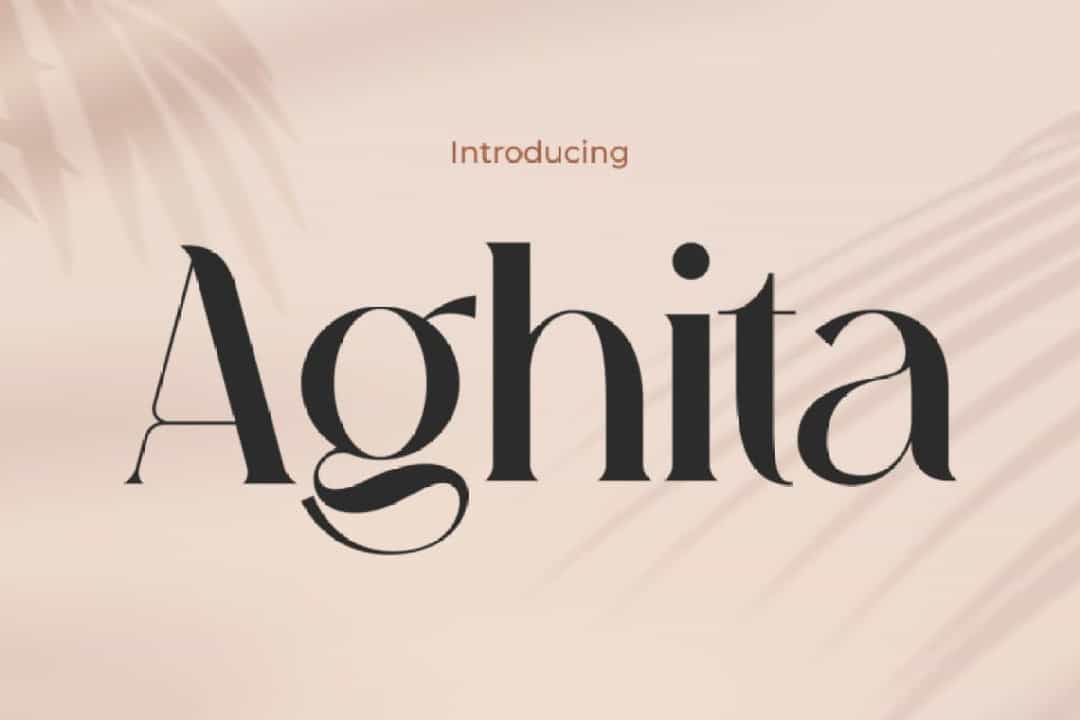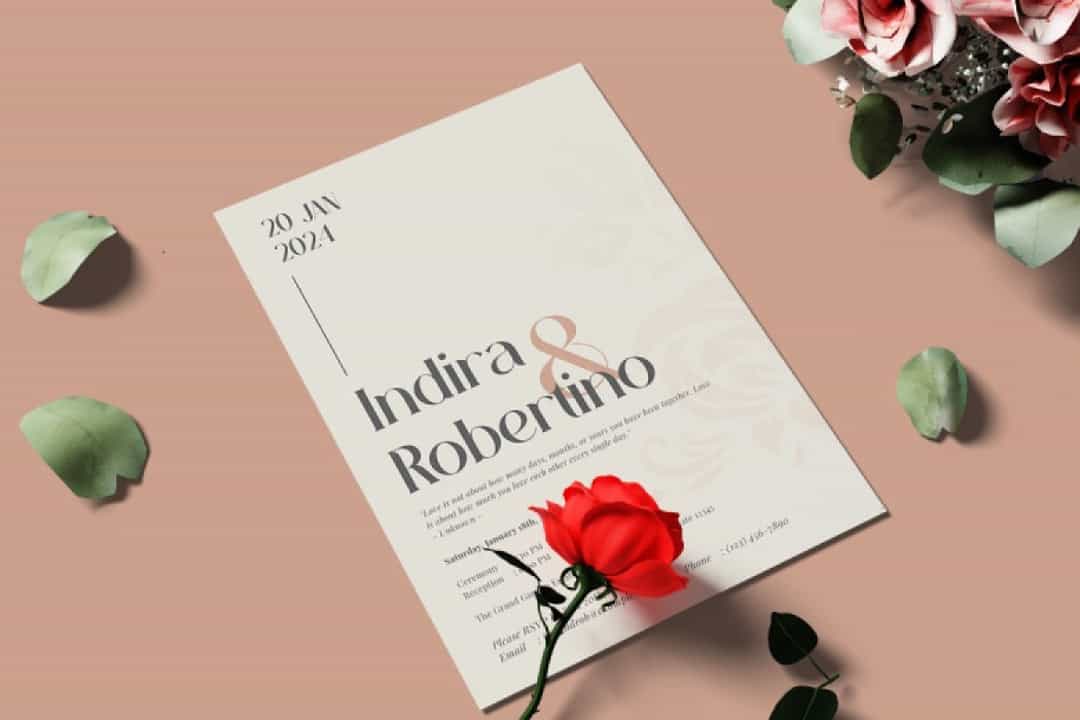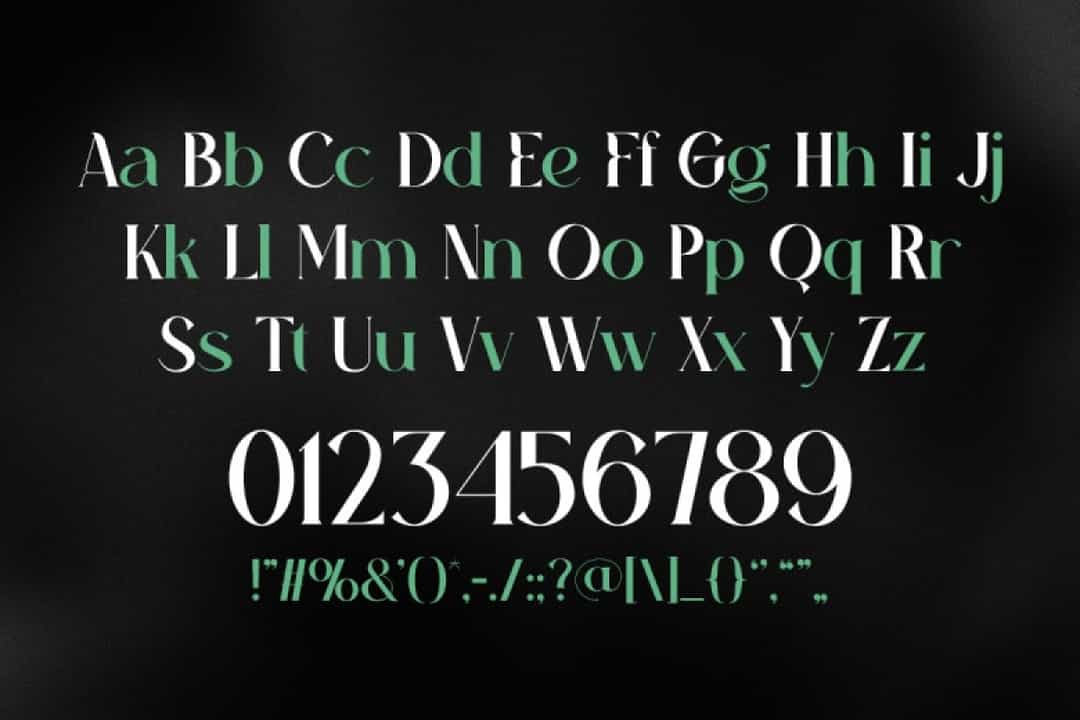
Aghita is an attractive serif typeface that transports you to an idyllic beach of modern paradise. Meticulously handcrafted to exude graceful elegance, every letter in this font boasts exquisite details for an unrivalled style. Boasting both timeless sophistication and modern opulence, Aghita makes a fantastic choice for magazine layouts or lavish promotional materials.